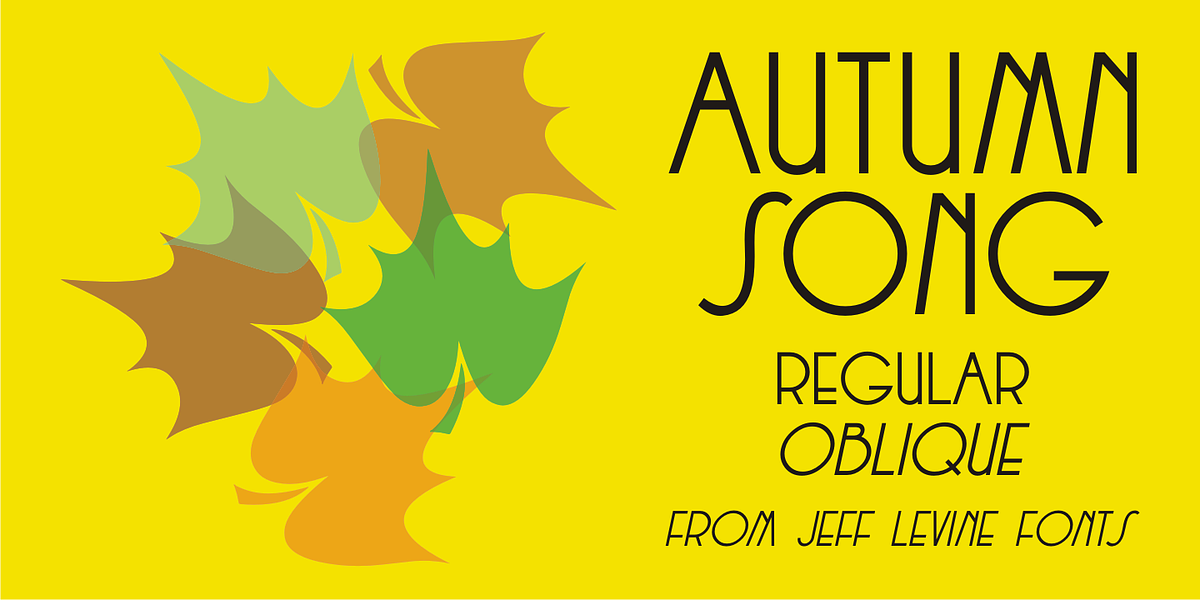
Autumn Song JNL
The cover of the sheet music for the 1931 song “When the Autumn Leaves of Life Begin to Fall”, has the song’s title hand lettered in a thin monoline Art Deco Style.
The song itself was co-written by Buddy G. De Sylva, who would go on to be one of the founders of Capitol Records.
Now digitally re-drawn as Autumn Song JNL, the font is available in both regular and oblique versions.